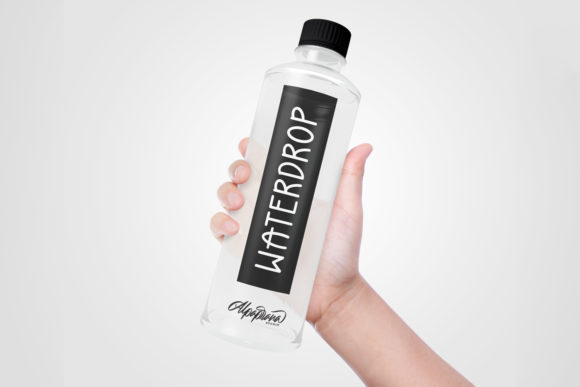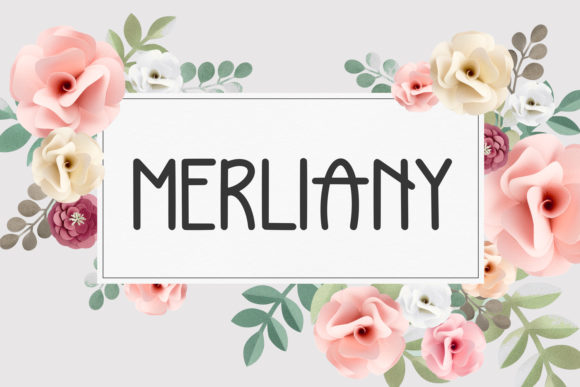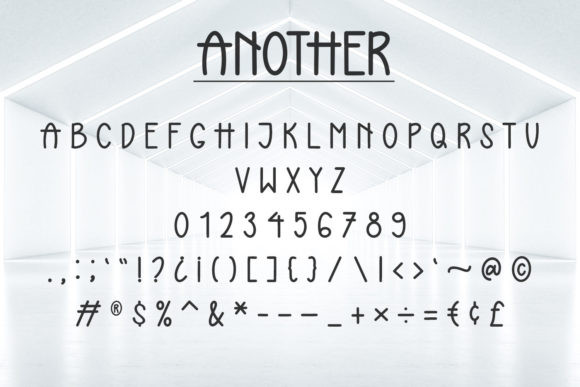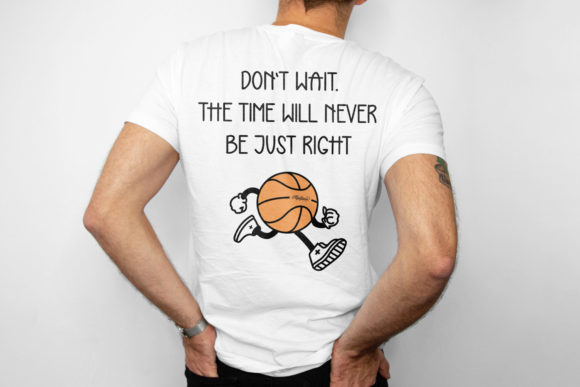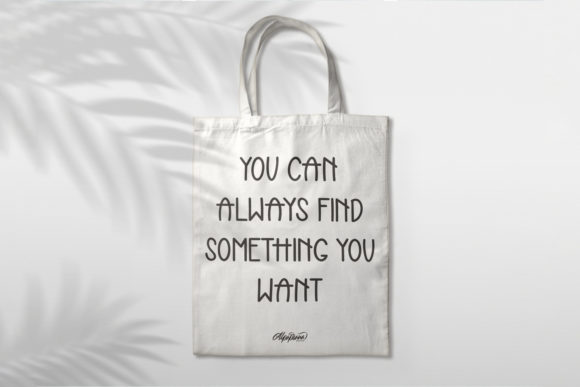
Another Font
About Another Font
Another is a cute and simple lettered handwritten font. No matter the topic, this font will be an incredible asset to your fonts’ library, as it has the potential to elevate any creation.